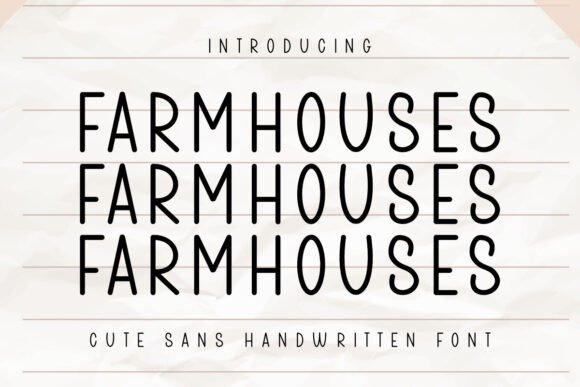
Introducing Farmhouses Font: The Perfect Blend of Modern and Rustic Charm
In the world of typography, fonts play a crucial role in conveying the tone and personality of a brand or design. When it comes to creating a warm and inviting aesthetic, few fonts can match the charm of Farmhouses Font. This cute sans handwritten font has taken the design world by storm with its clean, modern farmhouse vibe that’s perfect for a wide range of applications.
What is Farmhouses Font?
Farmhouses Font is a unique and stylish sans handwritten font that’s designed to evoke the feeling of a modern farmhouse. Its rounded edges and tall letterforms give off a friendly, casual charm that’s hard to resist. This font is perfect for designers, crafters, and brands looking to add a touch of rustic charm to their designs.
Key Features of Farmhouses Font
- Clean and Modern Design: Farmhouses Font boasts a clean and modern design that’s perfect for creating a sophisticated look.
- Rounded Edges: The font’s rounded edges give it a soft and friendly feel that’s perfect for designs that require a personal touch.
- Tall Letterforms: The tall letterforms of Farmhouses Font add to its elegance and make it perfect for creating eye-catching designs.
- Handwritten Feel: Despite being a sans font, Farmhouses Font has a handwritten feel that makes it perfect for creating personal and engaging designs.
Uses of Farmhouses Font
Farmhouses Font is a versatile font that can be used for a wide range of applications. Here are some of the most popular uses of this beautiful font:
Popular Use Cases for Farmhouses Font
- Home Decor Signs: Farmhouses Font is perfect for creating beautiful home decor signs that add a touch of rustic charm to any room.
- Product Labels: The font’s clean and modern design makes it perfect for creating product labels that stand out on store shelves.
- Social Media Quotes: Farmhouses Font is great for creating engaging social media quotes that resonate with your audience.
- DIY Projects: Whether you’re creating handmade crafts or DIY projects, Farmhouses Font is the perfect choice for adding a personal touch.
Why Choose Farmhouses Font?
With so many fonts available, why choose Farmhouses Font? Here are some compelling reasons to consider:
Why Farmhouses Font Stands Out
- Unique Design: Farmhouses Font has a unique design that sets it apart from other fonts.
- Versatility: The font’s versatility makes it perfect for a wide range of applications.
- Easy to Read: Farmhouses Font is easy to read, making it perfect for designs that require clear communication.
- Handcrafted Soul: The font’s handcrafted soul adds a personal touch that’s hard to find in digital fonts.
Tips for Using Farmhouses Font
To get the most out of Farmhouses Font, here are some tips to keep in mind:
Tips for Using Farmhouses Font
- Pair with Other Fonts: Farmhouses Font pairs well with other fonts, so don’t be afraid to experiment with different combinations.
- Use for Headings and Body Text: The font’s clean design makes it perfect for both headings and body text.
- Experiment with Colors: Farmhouses Font looks great in a variety of colors, so don’t be afraid to experiment with different color schemes.
- Keep it Simple: The font’s simplicity is part of its charm, so keep your designs simple and clean.
Farmhouses Font is a beautiful and versatile font that’s perfect for designers, crafters, and brands looking to add a touch of rustic charm to their designs. With its clean and modern design, rounded edges, and tall letterforms, this font is sure to become a favorite in your design arsenal. Whether you’re creating home decor signs, product labels, social media quotes, or DIY projects, Farmhouses Font delivers simplicity with a handcrafted soul.